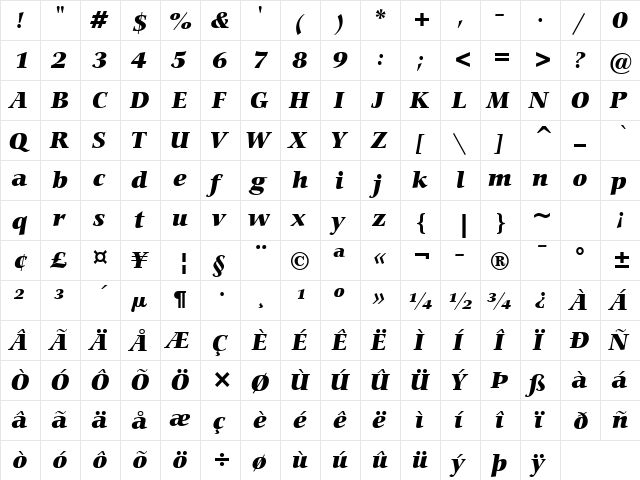
Carmina Blk BT Black Italic Font Preview
Carmina Blk BT Black Italic
Design Context for Carmina Blk BT Typeface
Carmina Blk BT offers clean, dependable letterforms without strong stylistic allegiance, making it a practical choice for designers who need flexibility. The slanted form adds forward momentum and visual energy.
Pro Tip: Try Carmina Blk BT for annotation and caption copy alongside an upright companion — the contrast in angle creates a dynamic but ordered typographic system.